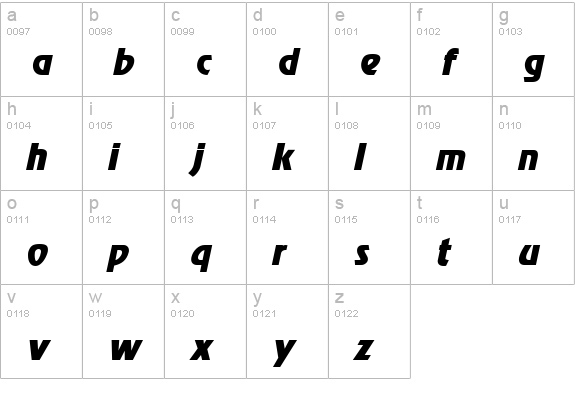
Revel Italic is a distinctive, italic variant in the Revel typeface family \xE2\x80\x94 well suited to design and typography projects.
Revel Italic font is a stunning and versatile typeface that exudes elegance and sophistication. Its sleek and curvaceous letterforms are delicately slanted, offering a sense of movement and grace to any design project. Perfect for adding a touch of style to invitations, logos, headlines, and more, this font is a must-have for designers seeking to elevate their creations. What sets Revel Italic font apart is not only its stunning aesthetics but also its accessibility. It is freely available to download at FontsMarket.com, making it easily accessible to designers and typographers alike. This means that you can effortlessly incorporate this beautiful font into your projects without any hassle or additional cost. Whether you're working on a personal project or a client's endeavor, Revel Italic font can effortlessly elevate your designs to new heights. Its timeless appeal and versatility make it suitable for a wide range of applications, from branding and packaging to editorial design and web graphics. The subtle slant of the letters adds a touch of uniqueness and modernity while still maintaining a sense of classic charm. The Revel Italic font features a wide range of characters, including uppercase and lowercase letters, numerals, punctuation marks, and special characters. This comprehensive character set ensures that you have all the tools you need to bring your creative visions to life. In addition to its aesthetic appeal, Revel Italic font also boasts exceptional legibility and readability. Its well-designed letterforms ensure that your message is conveyed with clarity and precision, whether in print or on-screen. This makes it a reliable choice for projects that require both style and functionality. With Revel Italic font, you have the freedom to explore endless design possibilities. Its versatility allows you to experiment with different styles, sizes, and layouts, ensuring that your creations are truly unique and eye-catching. Whether you're aiming for a bold and impactful statement or a more subtle and refined look, this font can adapt to your creative vision effortlessly. So why wait? Download Revel Italic font today from FontsMarket.com and unlock a world of design possibilities. With its stunning aesthetics, accessibility, and versatility, this font is a valuable addition to any designer's toolkit. Elevate your designs and captivate your audience with the timeless beauty of Revel Italic font.